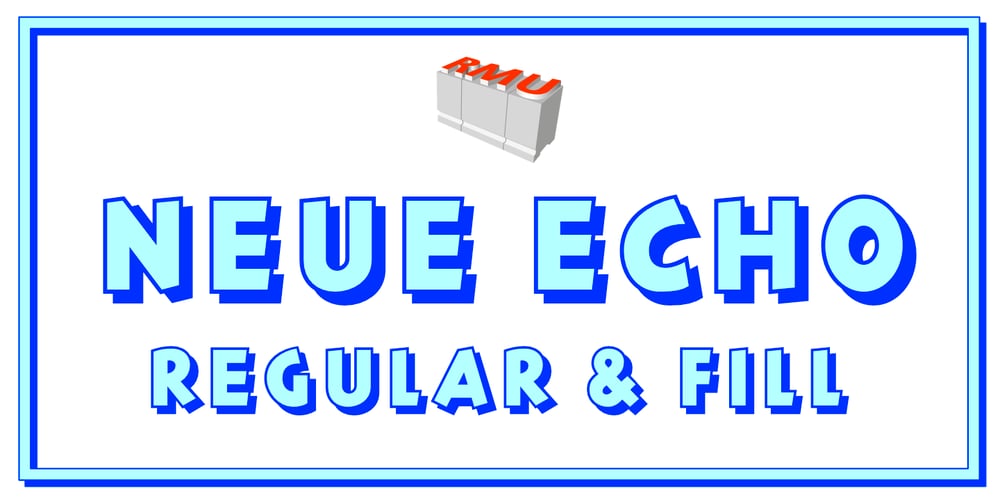
Neue Echo
Neue Echo font
Neue Echo Font Family was designed by Ralph M. Unger and published by RMU. Neue Echo contains 2 styles and family package options. Inspired by the former Schriftguss, Dresden, font Echo, this fresh-drawn und designed Neue Echo can be filled in many different ways, and makes it a great display font for labels, posters, headlines etc.